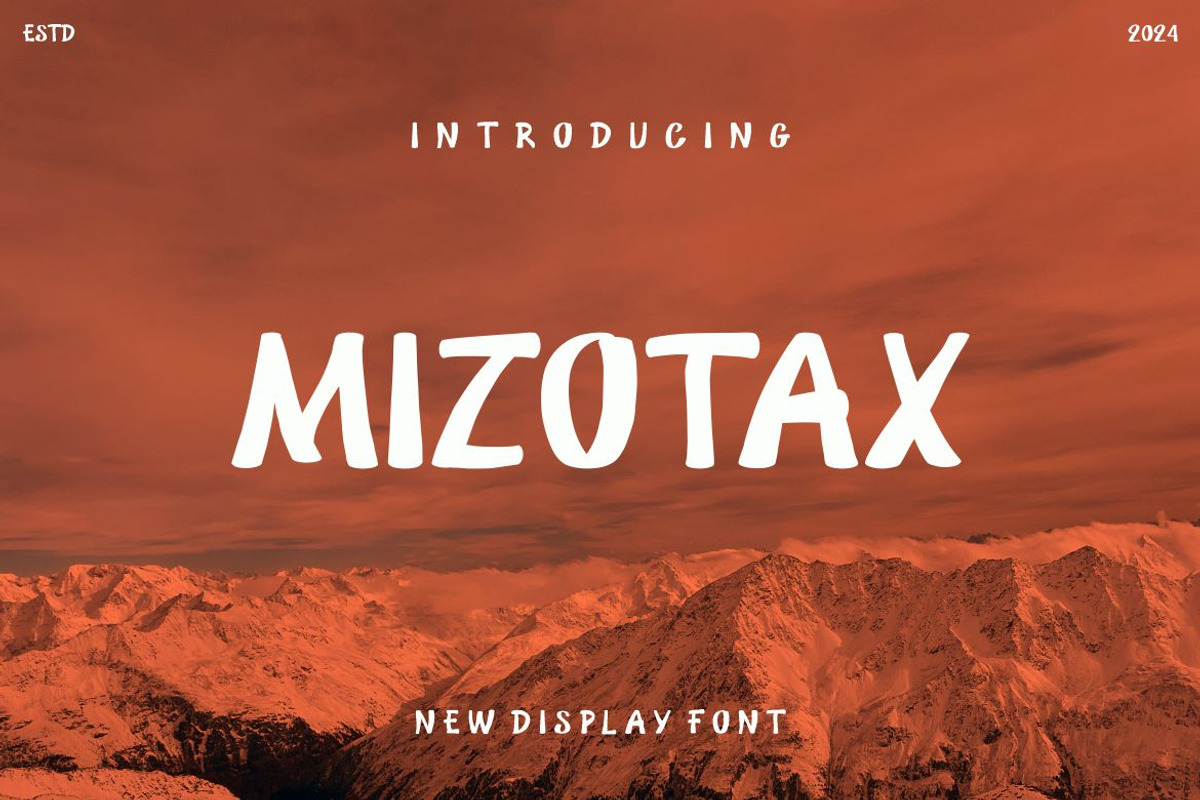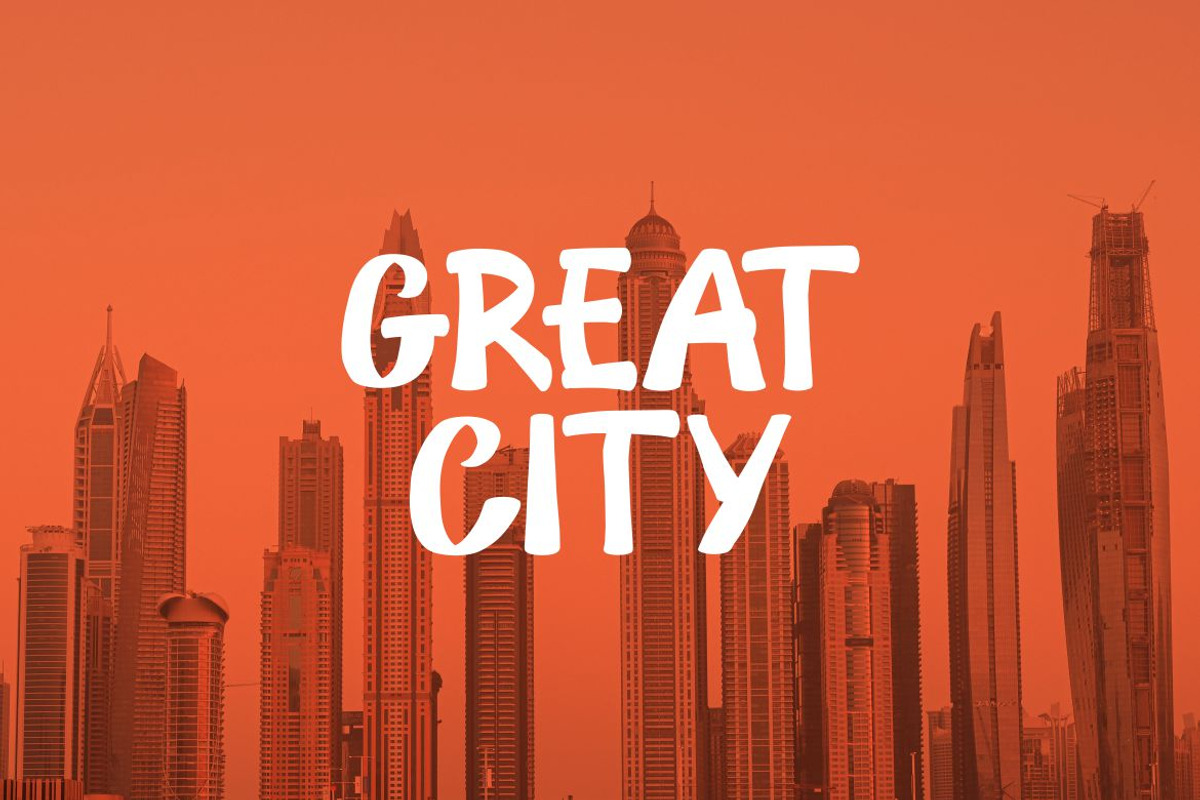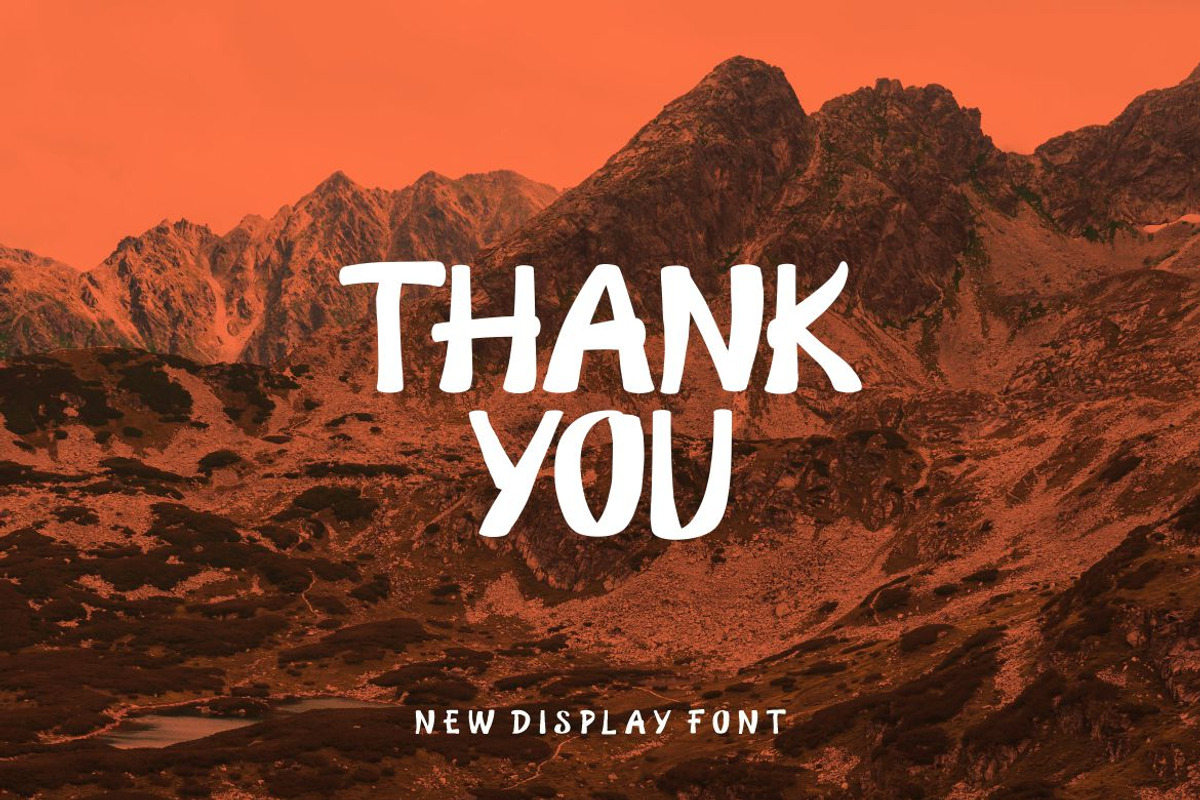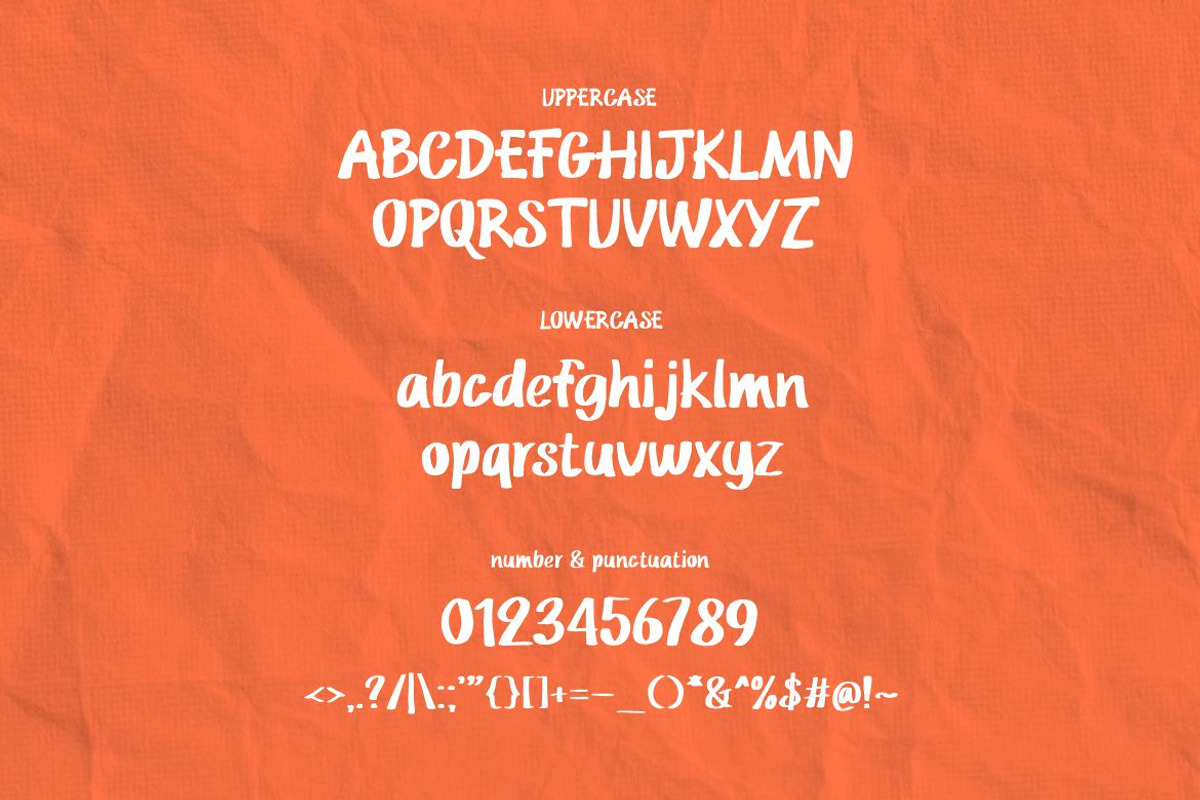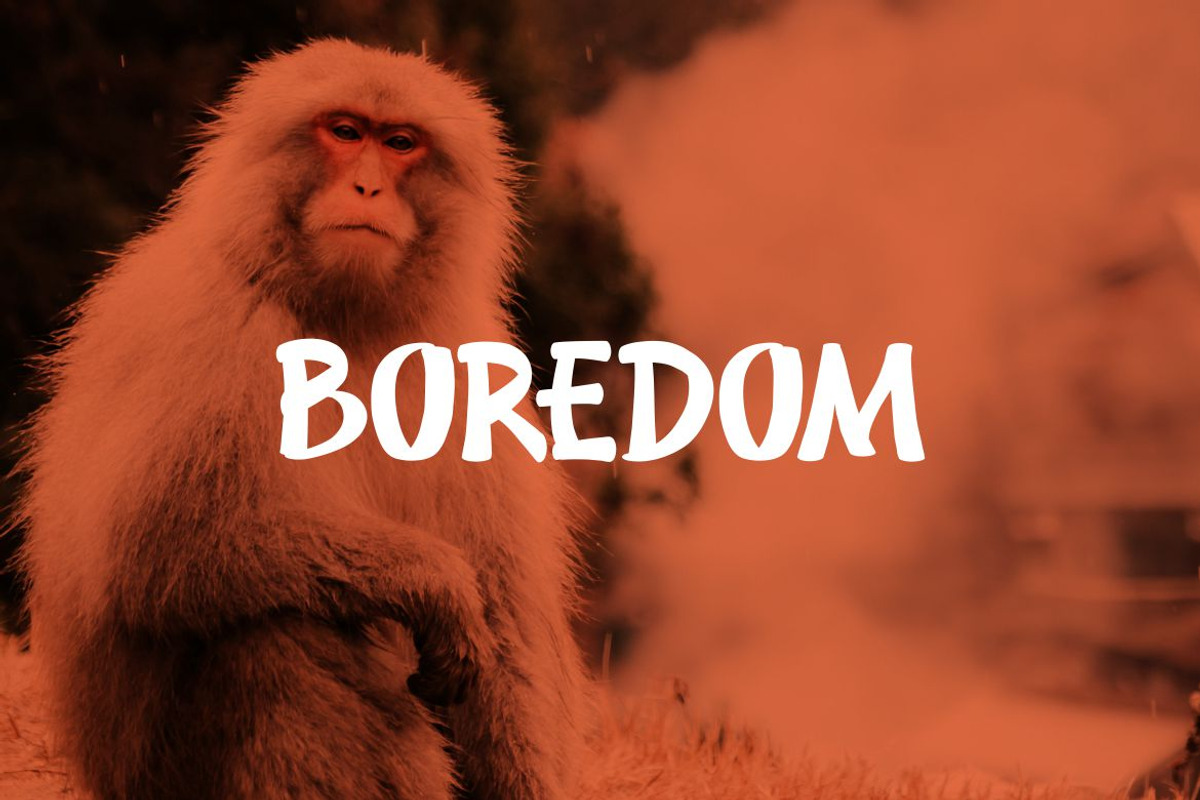
Mizotax
Introducing Mizotax , a cool and elegant modern Display font. Elegant font feel. This font gives you a beautiful and modern atmosphere. suitable for posters, book covers, cards, merchandise, etc.